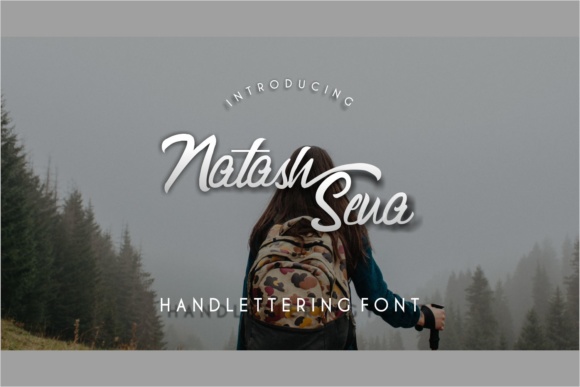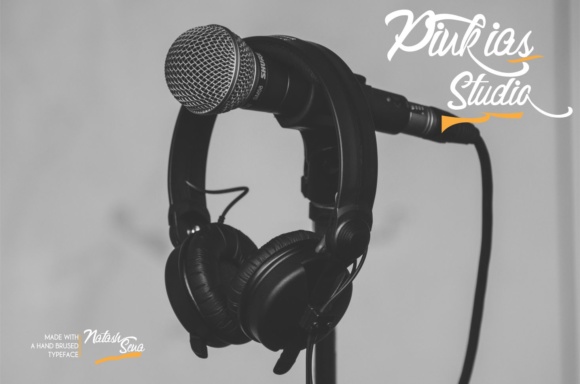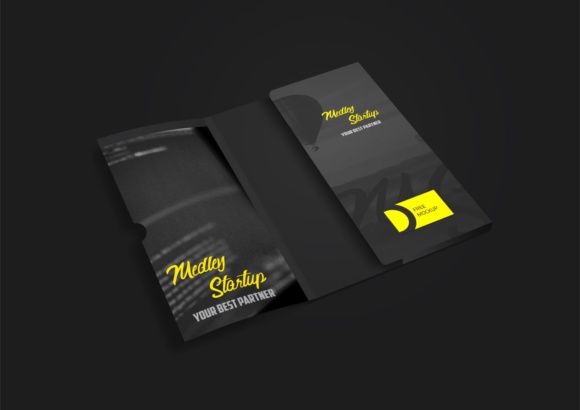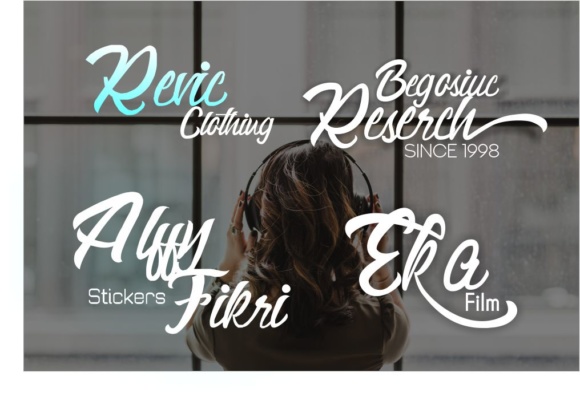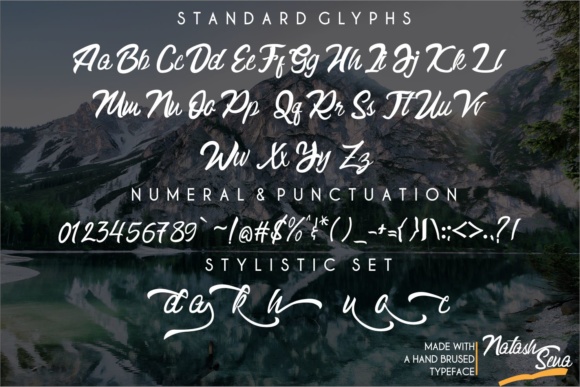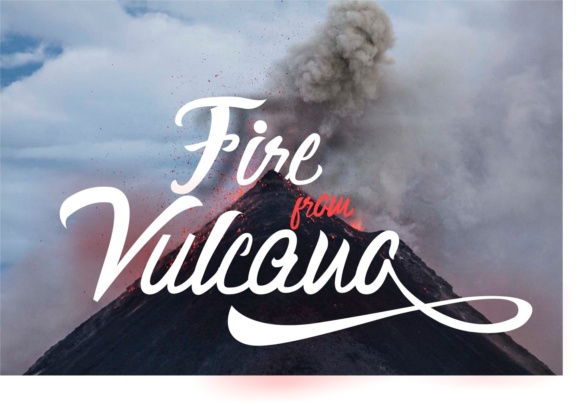
Natash Sena Font
About Natash Sena Font
Natash Sena is a hand painted typeface with a striking look. It’s perfect for letterheads, vintage apparel designs, headlines, logotypes, posters, cards, and much more!